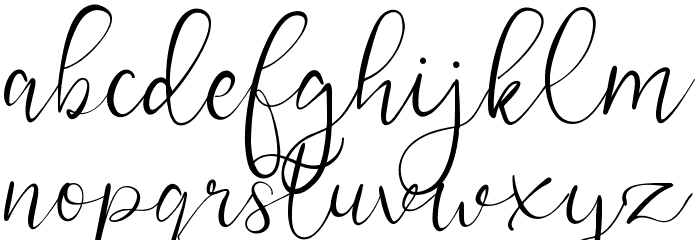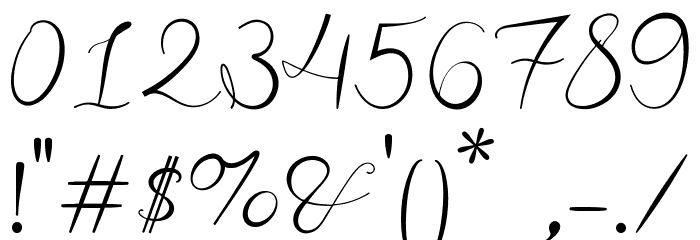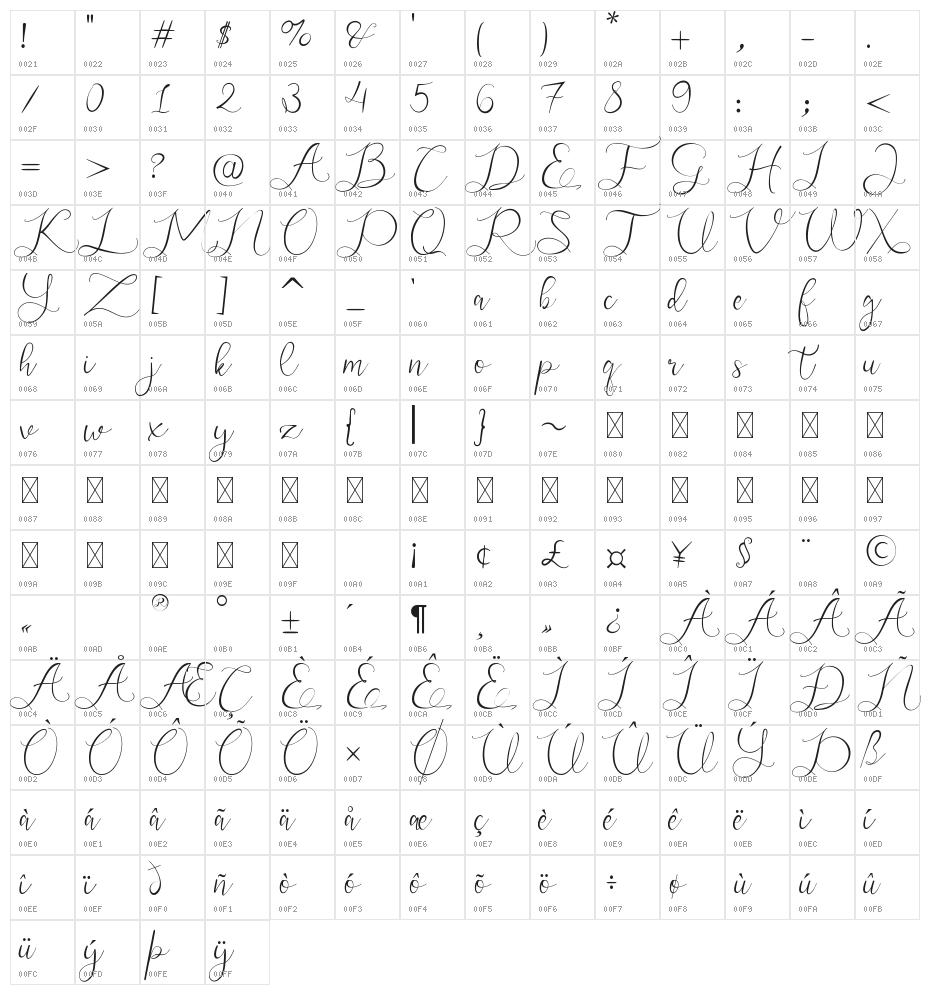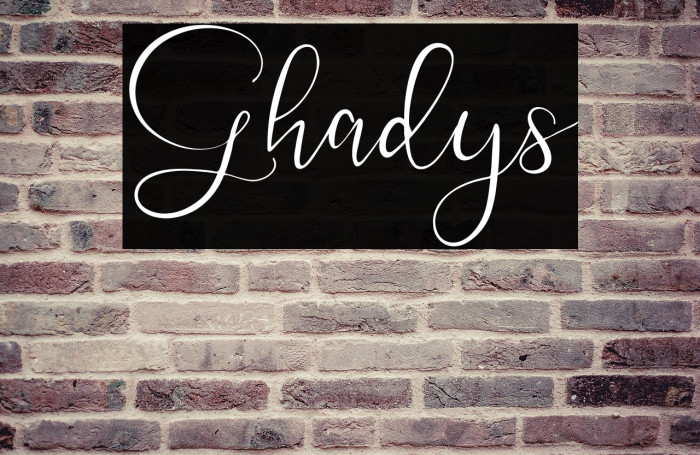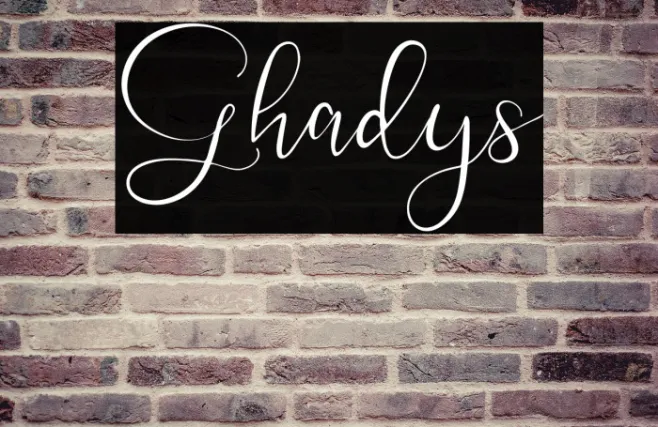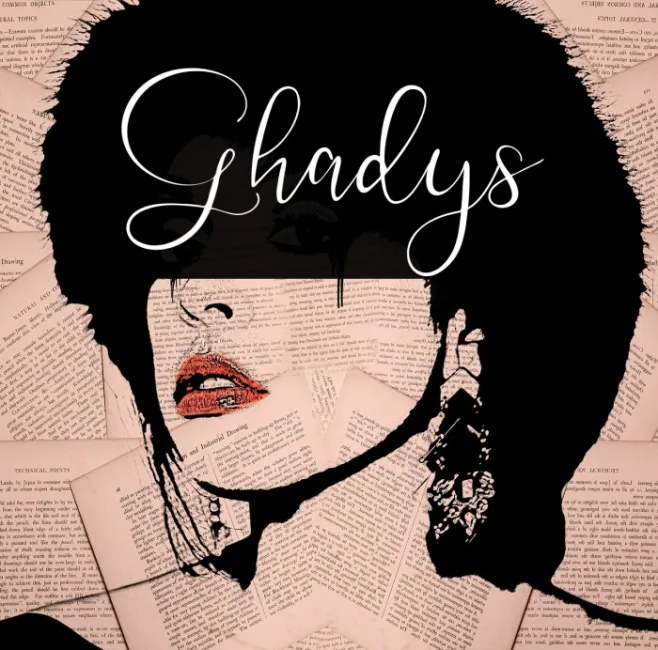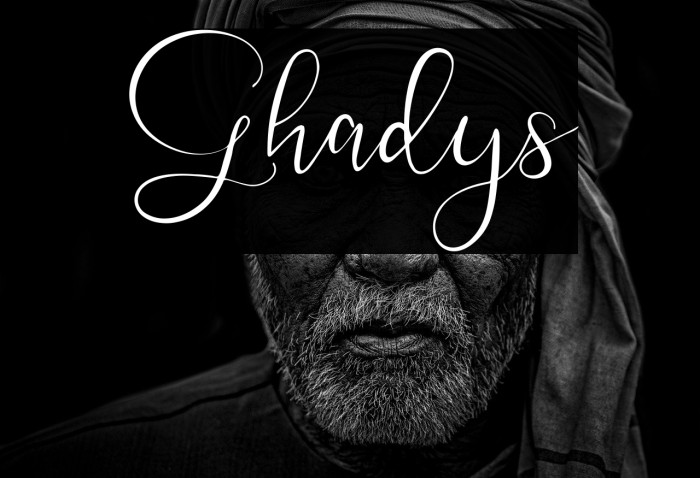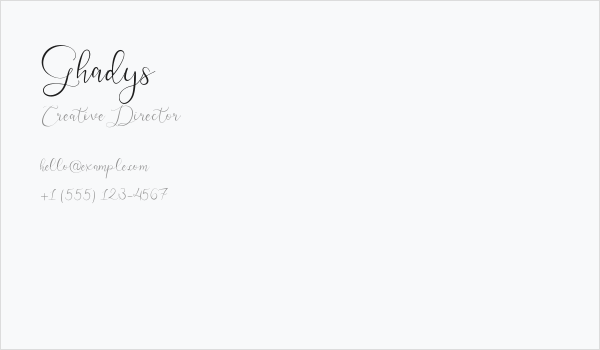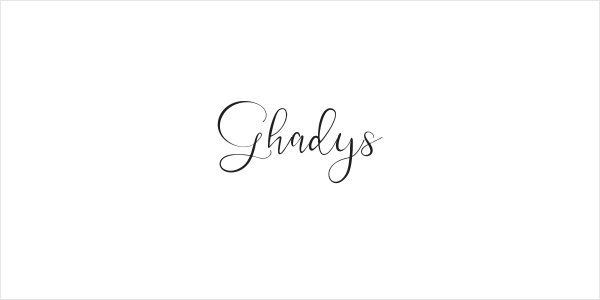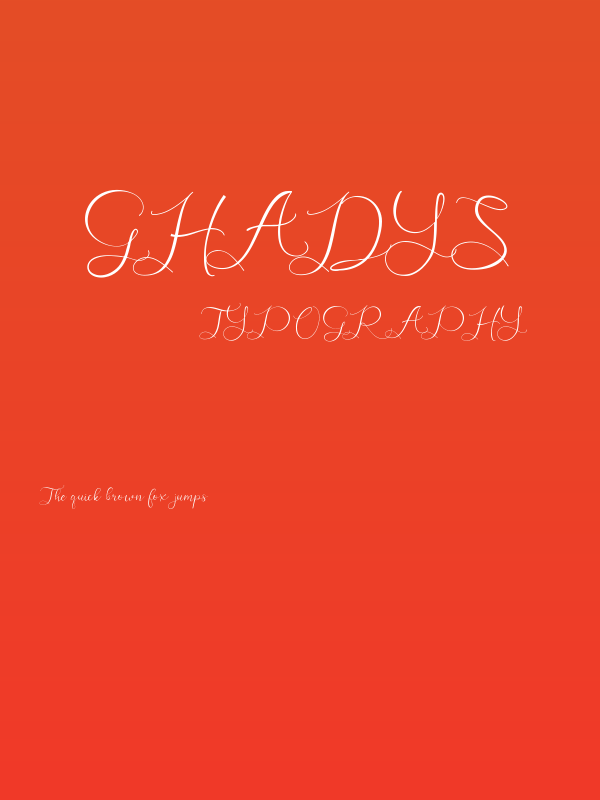
Ghadys Font
This elegant script font features a flowing, cursive style with intricate loops and swashes, creating a sense of sophistication and grace. The uppercase letters are particularly ornate, with elaborate flourishes that add a decorative touch. The lowercase letters maintain a consistent, fluid motion, enhancing readability while retaining the font's artistic flair. Numbers and special characters are designed with the same attention to detail, ensuring a cohesive look across all text elements. The font's overall appearance is both classic and modern, making it versatile for various design applications.
A sophisticated script font with elegant loops and swashes.
- Font: Ghadys
- Proposed Projects: Ideal for wedding invitations, elegant branding, greeting cards, and luxury packaging.
- Category: Script
- Overall Style: Classic
- Use Case: Logos, Invitations, Decorative text